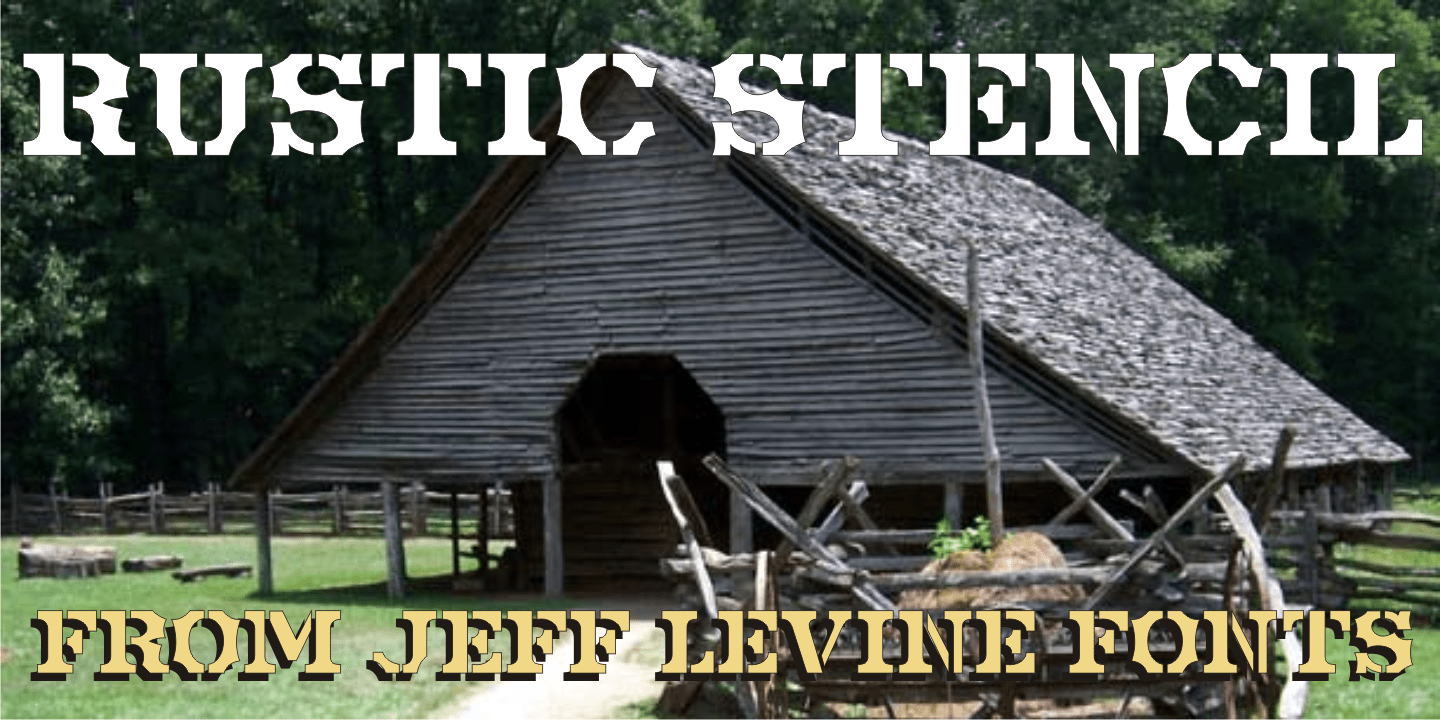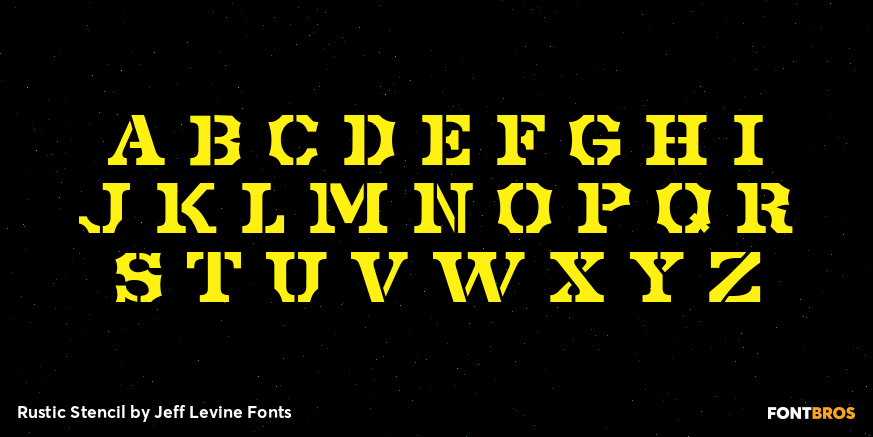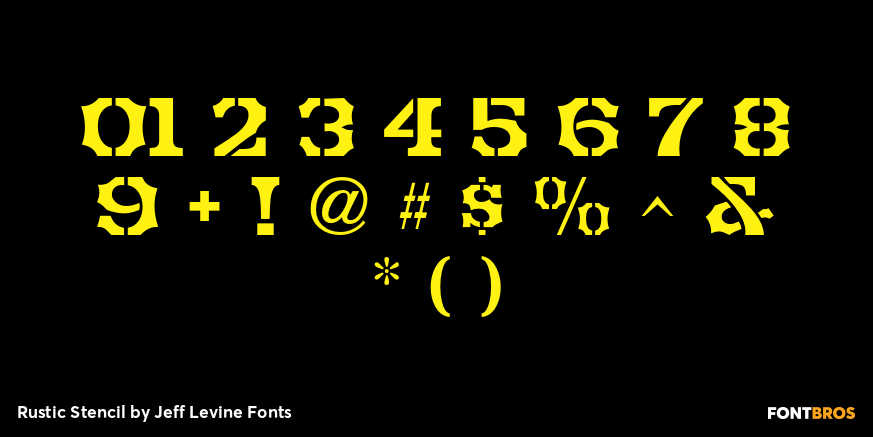
Rustic Stencil
A hand-lettered title on a children's stencil book for sale in an online auction served as the basis for Rustic Stencil JNL. Reminiscent of classic wood type, this stencil design adds a Western-influenced flair to any typographic project.